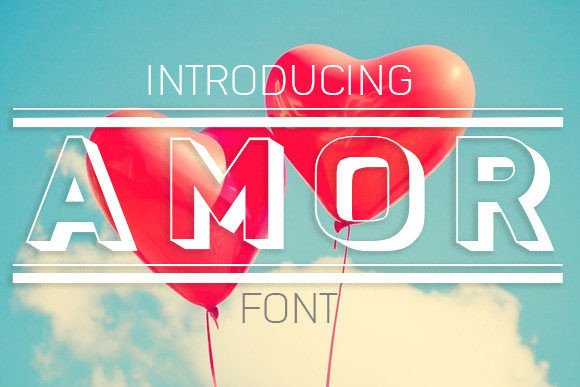
Finding Love at First Sight: My Journey with Amor Font
I’ll never forget the moment I stumbled upon Amor Font while working on a project for a client who needed a unique and eye-catching design. I had been searching for the perfect font for hours, but nothing seemed quite right. That was until I saw Amor – a stunning 3D display font that immediately caught my attention. I knew right then and there that it was the one. In this article, I’ll share my experience with Amor Font, its features, and how to make the most of it in your designs.
A Honest Review of Amor Font
So, what makes Amor Font so special? Let’s dive into the good stuff and a few quirks I’ve discovered.
What I Love About Amor Font
- ✨ Stunning 3D Effect: Amor Font has a beautiful, eye-catching 3D effect that’s perfect for making your designs stand out.
- ✅ Highly Versatile: This font can be used on a wide range of projects, from postcards and flyers to magazines and more.
- 💫 Unique Character: Amor Font has a distinctive personality that adds a touch of elegance and sophistication to any design.
While Amor Font is an amazing font, there are a few things to keep in mind:
- 🤔 Legibility at Small Sizes: As with many 3D fonts, Amor can become a bit tricky to read at very small sizes. It’s best used at larger sizes where its features can shine.
- ⚠️ Overuse: Because Amor Font is so attention-grabbing, it’s easy to overuse it. Make sure to balance it with simpler fonts to maintain readability.
Exploring Alternatives to Amor Font
While Amor Font is unique, you might be interested in similar fonts for different projects:
- Ziggurat: A futuristic 3D font great for tech and gaming designs.
- Metronic: A sleek, modern font with 3D effects suitable for web and digital projects.
- Architect: A sturdy, architectural font with 3D aspects perfect for construction and design projects.
- Luxor: An elegant, high-end 3D font ideal for luxury brands and high-fashion designs.
The Story Behind Amor Font
Amor Font was designed with the intention of capturing the essence of love and passion in a visually striking way. The designer aimed to create a font that not only stands out but also evokes emotions. Whether it’s used for Valentine’s Day promotions, love letters, or simply adding a touch of elegance to a design, Amor Font is sure to leave a lasting impression.
| Is Amor Font suitable for body text? | No, Amor Font is best used for headings and titles due to its 3D effect and decorative nature. |
| Does Amor Font support OpenType features? | Yes, Amor Font comes with OpenType features, including stylistic alternates and glyphs, which can be accessed in compatible software. |
Amor Font is a versatile and stunning addition to any designer’s toolkit. Its unique 3D effect and elegant appearance make it perfect for a wide range of projects. With its OpenType features and compatibility with popular design software, Amor Font is sure to inspire your next design masterpiece.